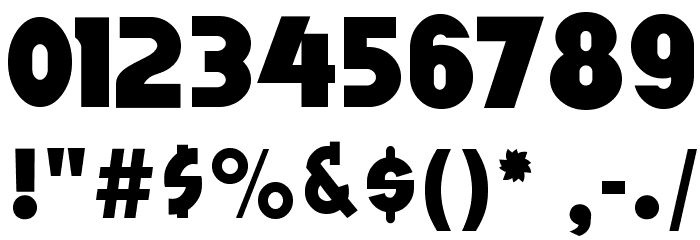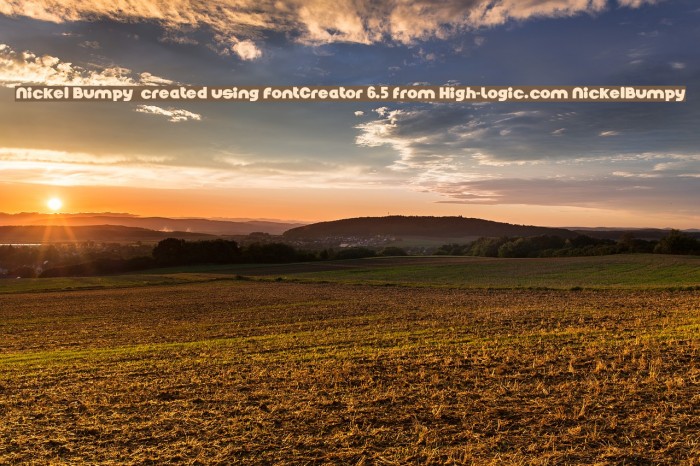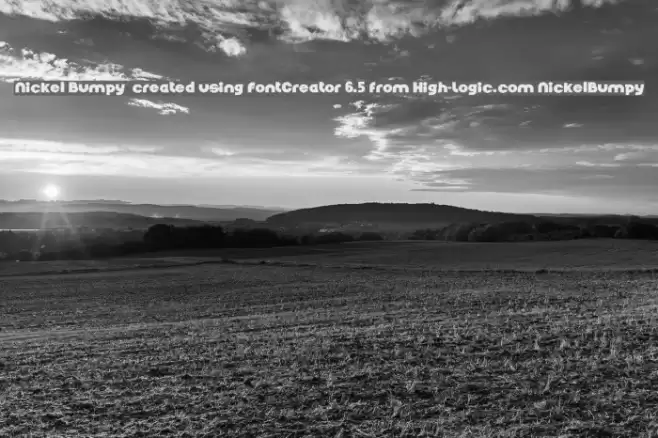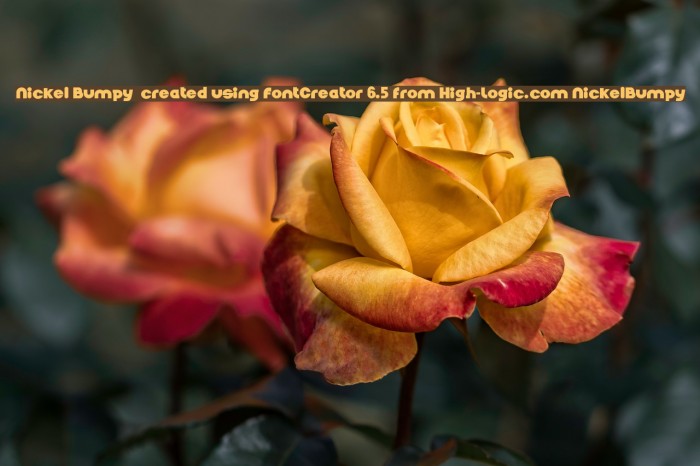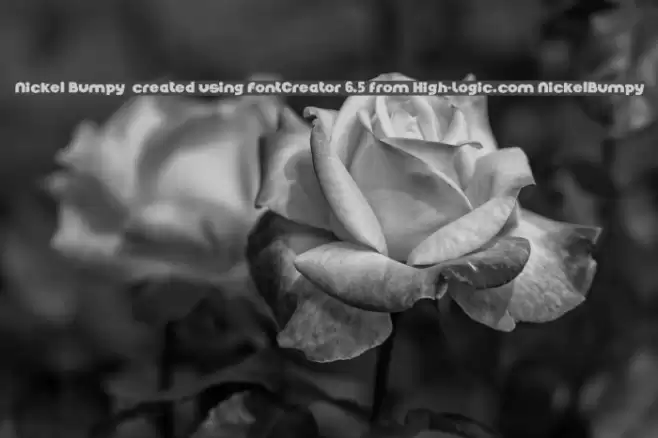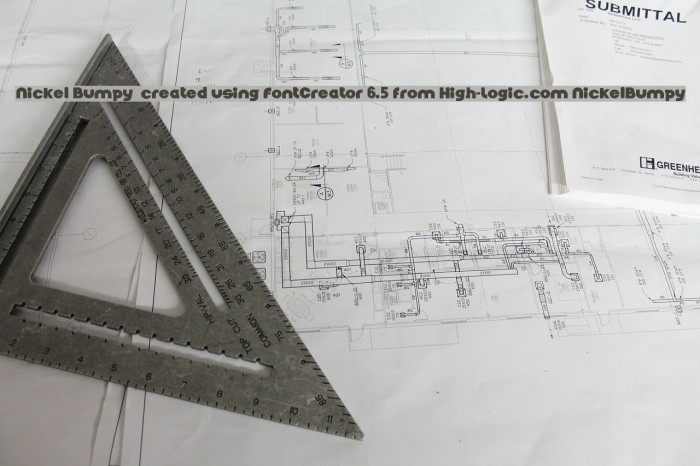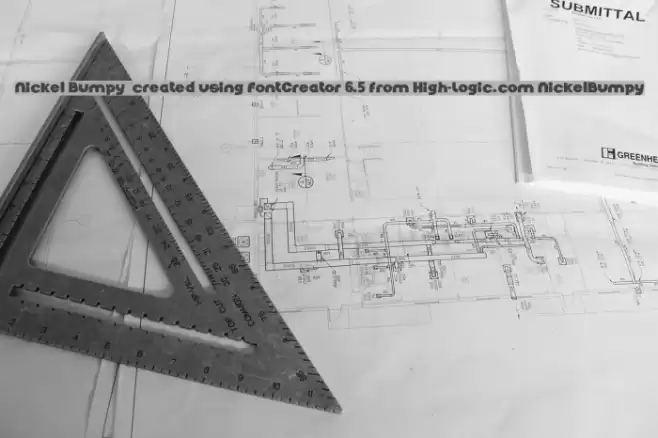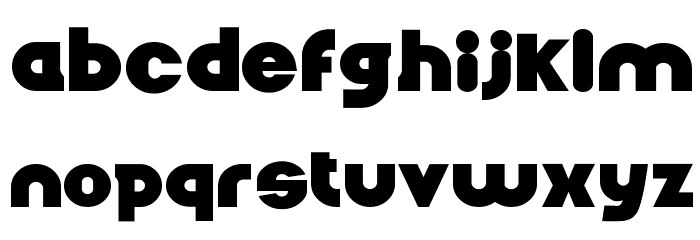
Nickel Bumpy created using FontCreator 6.5 from High-Logic.com NickelBumpy Font
Nickel Bumpy created using FontCreator 6.5 from High-Logic.com NickelBumpy Description
This font features a bold and playful design with rounded edges and a strong presence. The uppercase and lowercase letters are uniformly wide, creating a cohesive look. The characters are distinctly geometric, with a modern flair that makes them stand out. The numbers and special characters maintain the same boldness, ensuring consistency across all text. This font is ideal for projects that require a fun and engaging aesthetic, while still maintaining readability.
| Proposed Projects | Ideal for children's books, playful branding, posters, and creative advertising campaigns. |